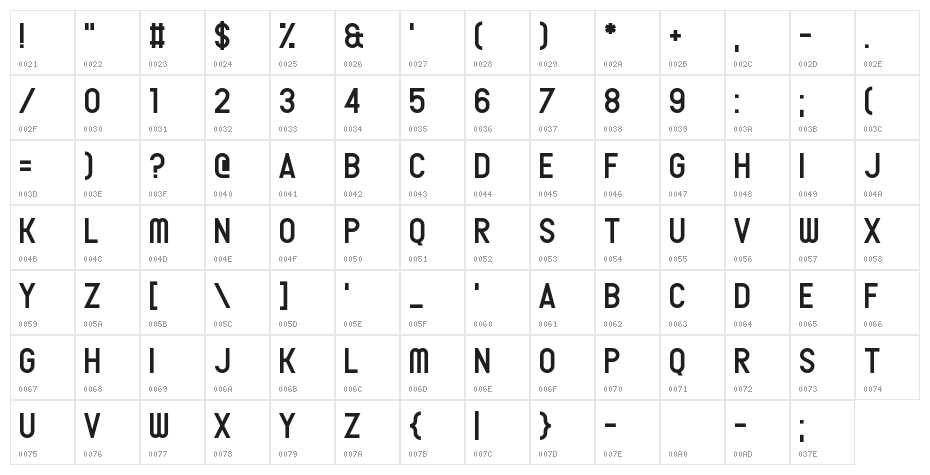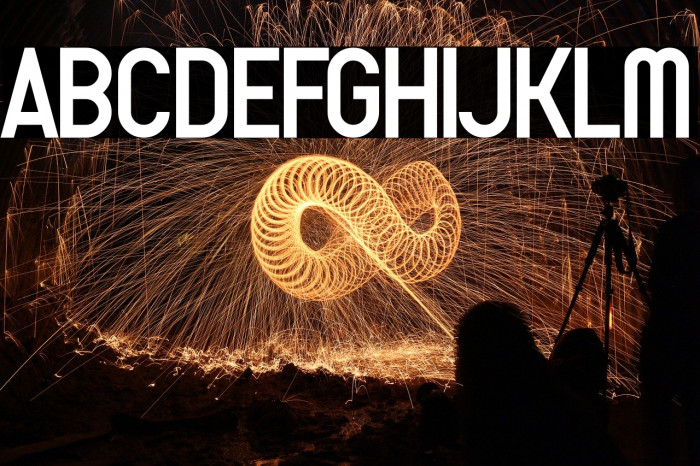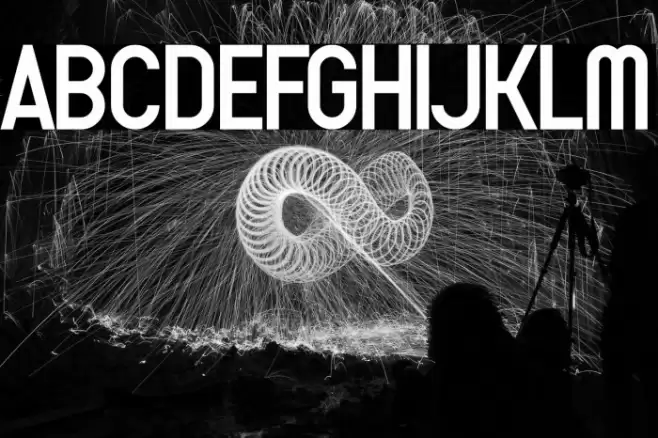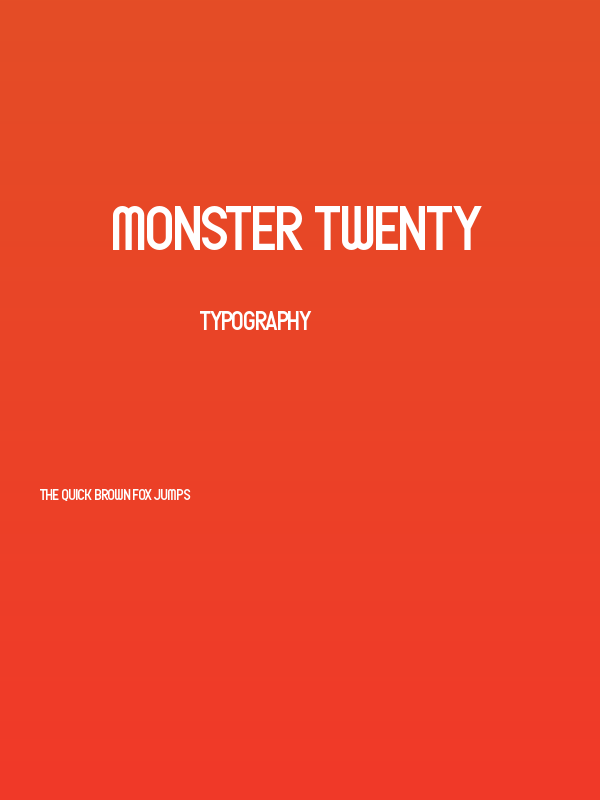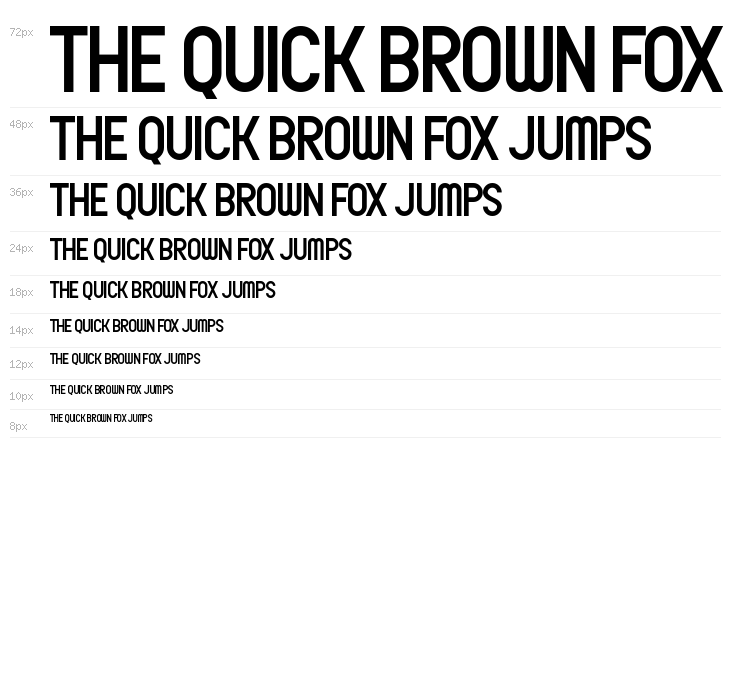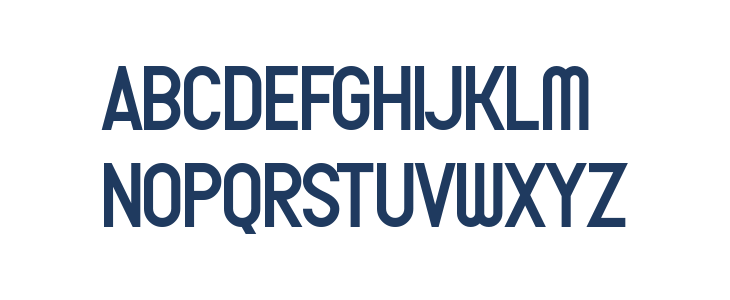
Monster Twenty Font
Monster Twenty Description
This font features a bold, geometric sans-serif style with a modern and clean appearance. The characters are uniformly thick, providing a strong and impactful look. The uppercase letters are tall and slightly condensed, giving a sense of authority and presence. The lowercase letters maintain the same boldness, ensuring consistency throughout the typeface. Numbers are clear and legible, making them suitable for various applications. Special characters are designed to match the overall aesthetic, ensuring a cohesive look across all elements. The font's simplicity and strength make it versatile for a range of design projects.